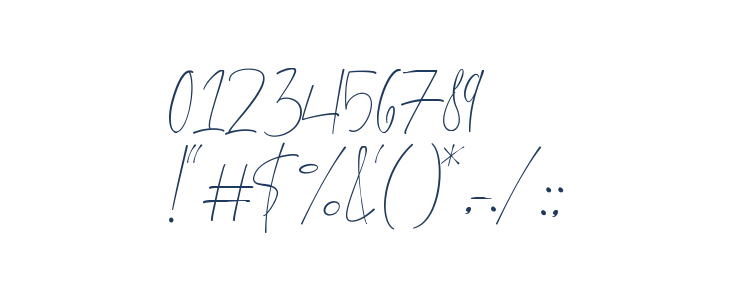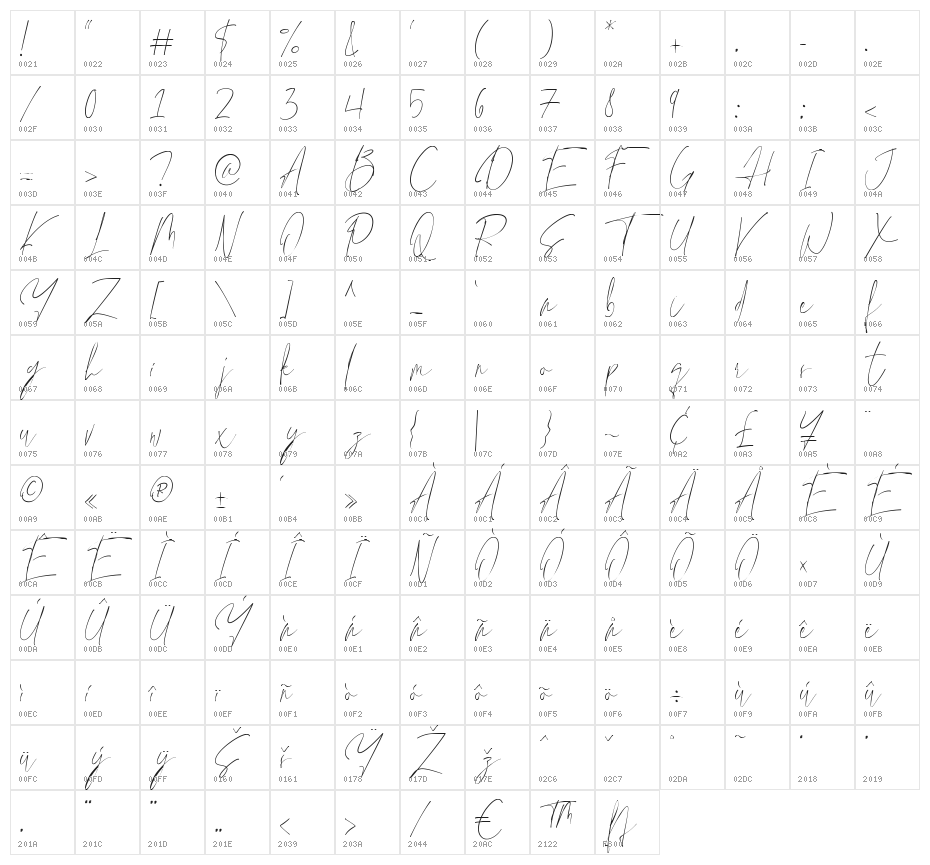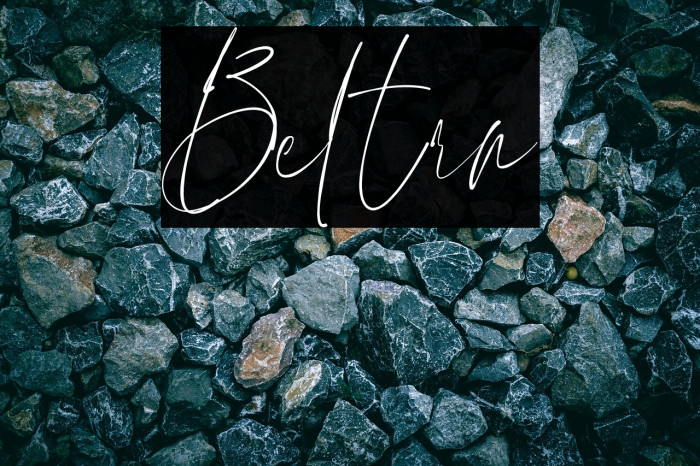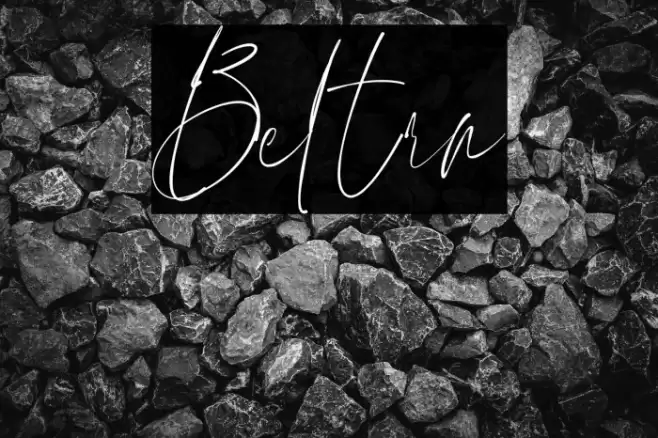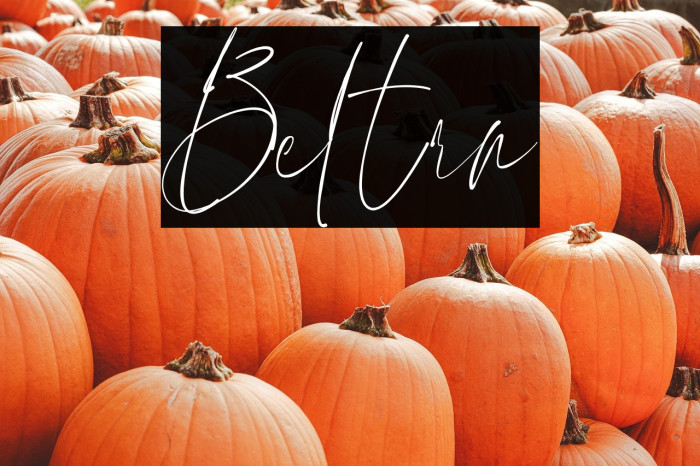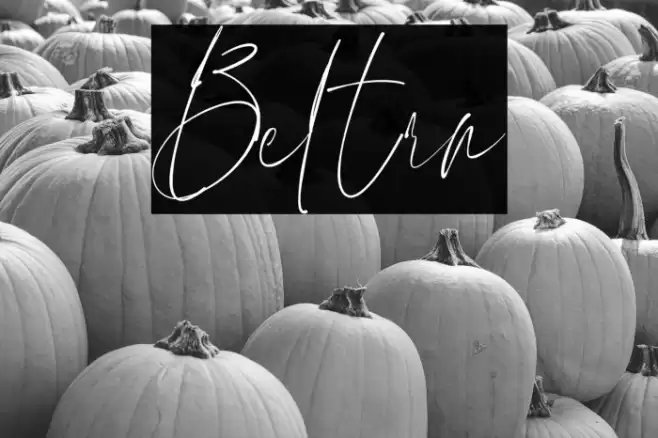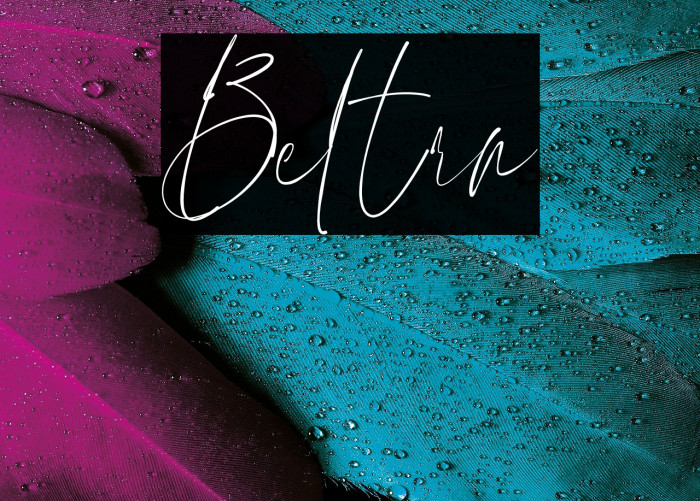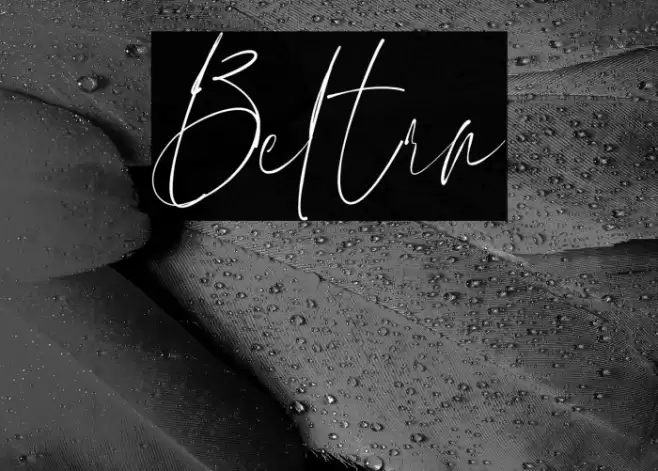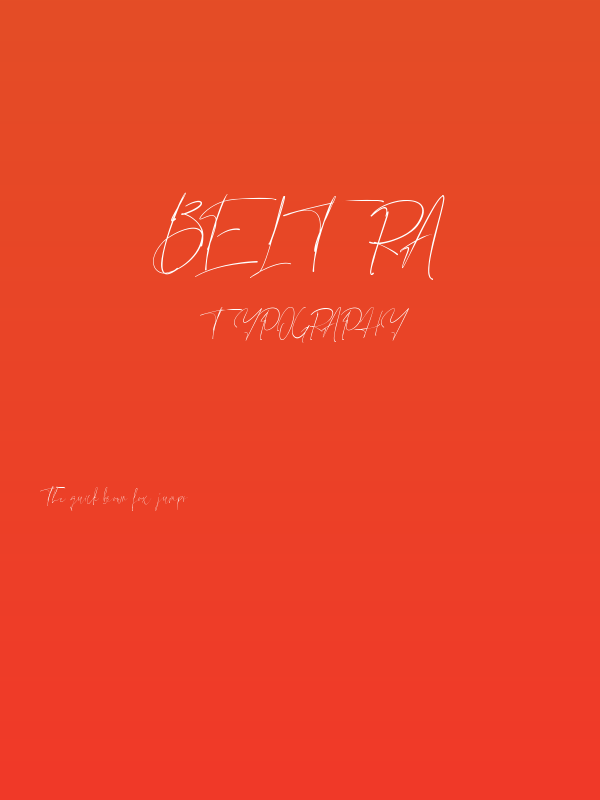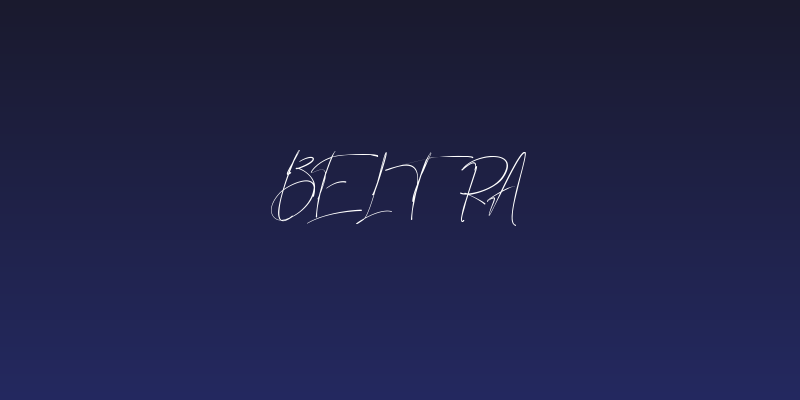
Beltra Font
Beltra Description
This font exudes a dynamic and expressive style, characterized by its fluid, handwritten appearance. The letters are crafted with a natural, flowing script that conveys a sense of elegance and spontaneity. The uppercase and lowercase letters maintain a consistent slant, enhancing the cursive feel. Numbers and special characters are seamlessly integrated, maintaining the font's cohesive look. The strokes vary in thickness, adding a touch of artistic flair and visual interest. This font is perfect for projects that require a personal, human touch, such as invitations, greeting cards, or creative branding.
| Proposed Projects | Ideal for invitations, greeting cards, personal branding, and creative projects. |